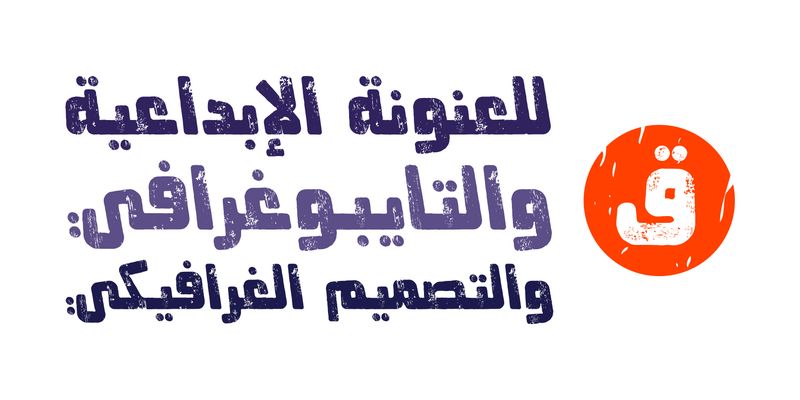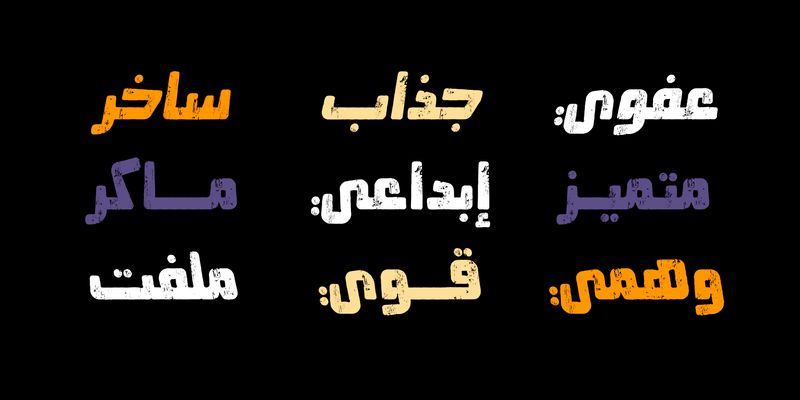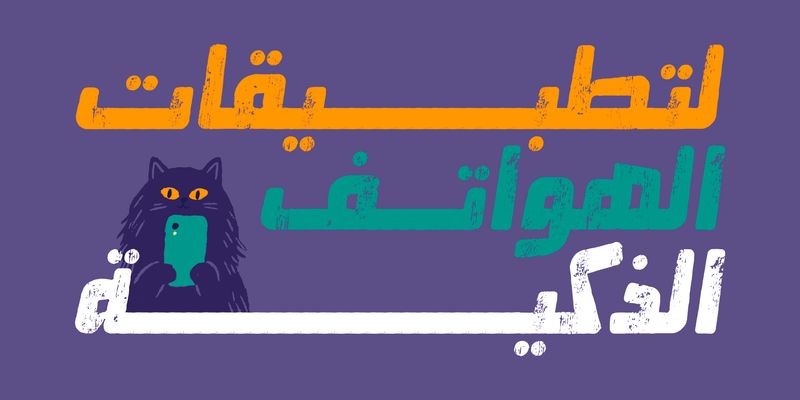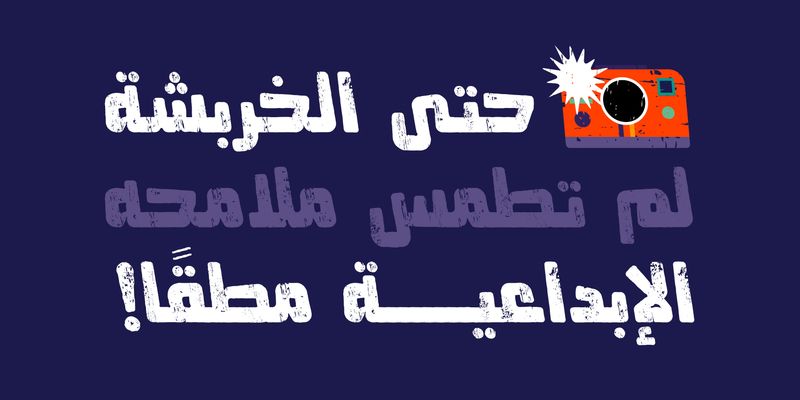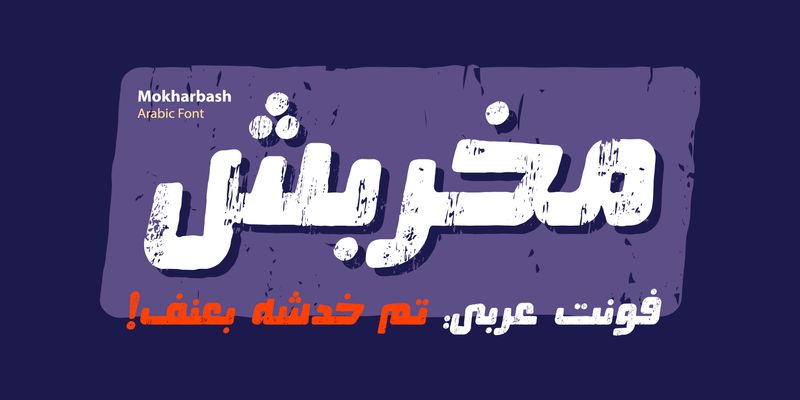
Mokharbash (which translates to “Scratched” in Arabic) is a distinctive typeface that blends contemporary design language with a handcrafted, textured aesthetic. Its bold, highly legible letterforms make it ideal for technology, media, and branding projects while still paying homage to Arabic calligraphy. The Mokharbash font family includes three styles: Scratched, Oblique1, and Oblique2. It supports Windows, macOS, and mobile applications.
Mostafa El Abasiry is an independent Arabic type designer whose work has helped define a new era of expressive Arabic typography. Since 2009, he has built a distinctive and influential catalogue of Arabic typefaces known for their bold geometry, modern aesthetics, and emotionally resonant visual character. His designs are widely recognized for merging the structural clarity of geometric construction with the creative freedom of contemporary display typography.
Mostafa’s approach is rooted in a balance of mathematical precision and artistic intuition. Many of his typefaces begin as geometric studies - circles, arcs, grids, and modular systems, before evolving into expressive display families with strong visual identity. Other designs explore texture, layering, and experimental forms, expanding the expressive potential of Arabic letterforms in digital environments.
In 2017, Mostafa introduced Tajreed, the first Arabic OpenType‑SVG color font ever created. This pioneering work brought textured, multi‑layered Arabic typography into mainstream digital use and opened a new category of expressive Arabic tools for designers and everyday creators. Tajreed later grew into a broader ecosystem of textured and experimental families that influenced how Arabic typography appears in mobile apps, creative platforms, and user‑generated content.
Mostafa’s typefaces have been used by a wide range of clients, from global brands such as Apple TV+ and Turkish Airlines to millions of everyday creators. Despite this reach, his design process remains deeply personal: every typeface begins with hand‑drawn sketches, geometric construction, and a search for a unique visual voice rooted in Arab visual culture.
Today, Mostafa continues to expand his catalogue with new display families, textured experiments, and modern interpretations of Arabic typographic heritage. His work aims to give designers and creators expressive tools that did not exist before - tools that make Arabic typography feel bold, modern, and alive.